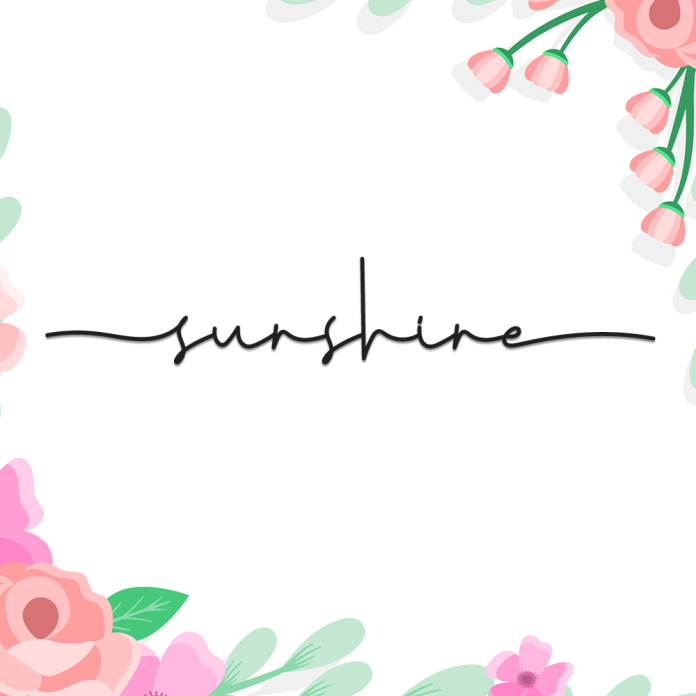
Sunshine is a warm and uplifting handwriting font that brings a touch of brightness to any design. With smooth, casual strokes and a friendly personality, it feels like a handwritten note from a sunny day.
Handwriting style with natural and soft letterforms
Inspired by warmth, positivity, and handwritten journals
Perfect for quotes, personal branding, invitations, social media, and logos
Includes uppercase, lowercase, numbers, punctuation & multilingual support